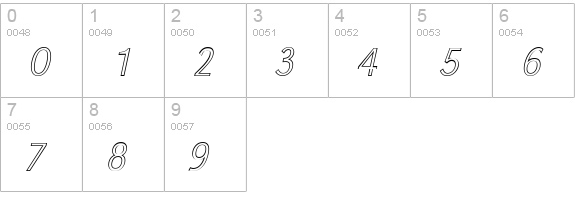
GroteskOu-Xlight-Italic is a distinctive, italic variant in the GroteskOu typeface family \xE2\x80\x94 well suited to design and typography projects.
GroteskOu-Xlight-Italic font is a sleek and modern typeface that combines clean lines with a touch of elegance. Its delicate italic style adds a sophisticated flair to any design project, making it perfect for use in branding, editorial design, and more. The slender letterforms exude a sense of refinement, while the subtle italic angle adds a dynamic twist. Best of all, GroteskOu-Xlight-Italic font is available for free download at FontsMarket.com. This means you can easily access this stylish typeface and incorporate it into your creative endeavors without any cost. Whether you're working on a website, print materials, or any other project that requires a touch of sophistication, GroteskOu-Xlight-Italic font is a versatile choice that is sure to elevate your designs. Download it today and see for yourself the impact this font can make on your work.